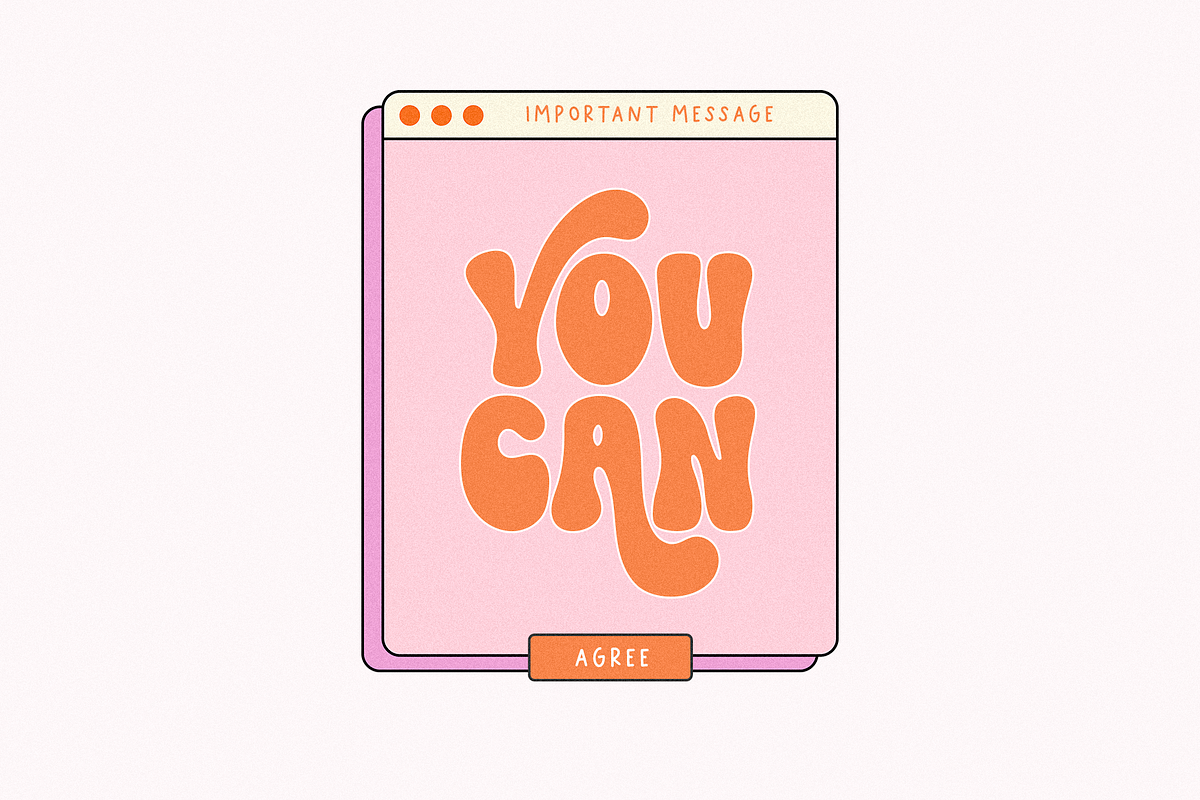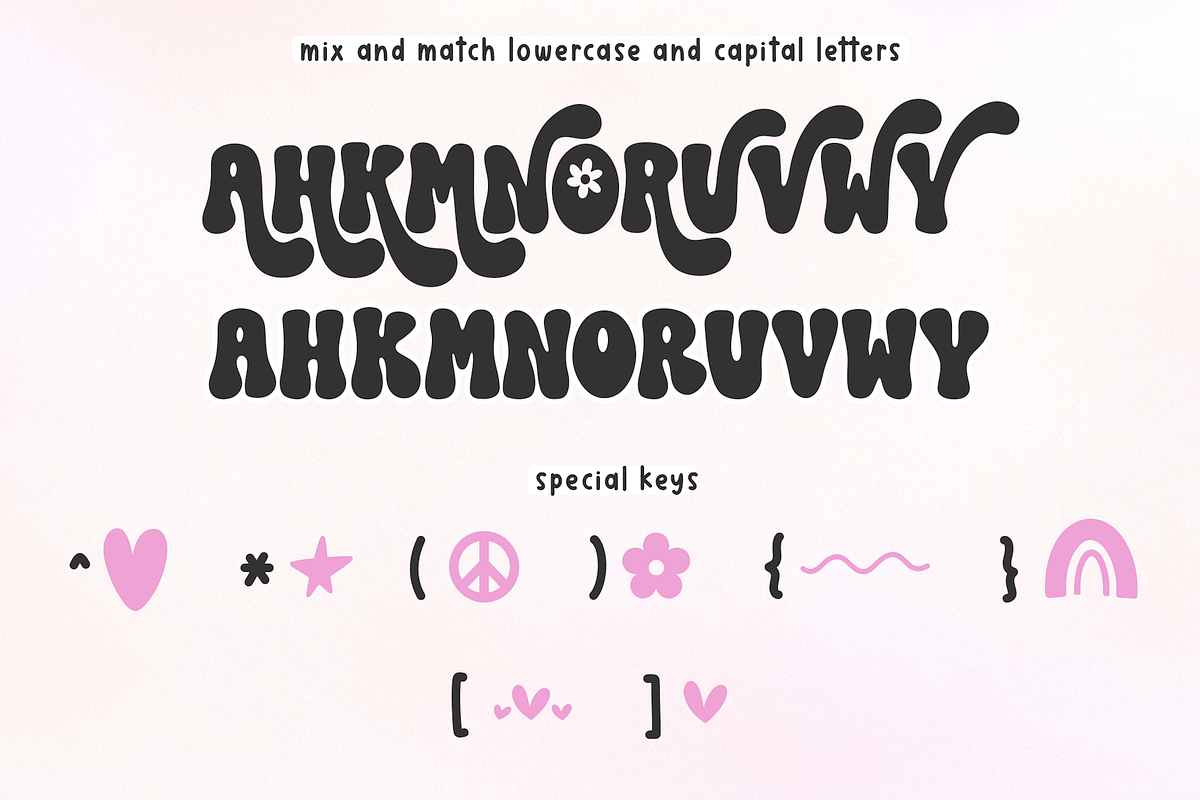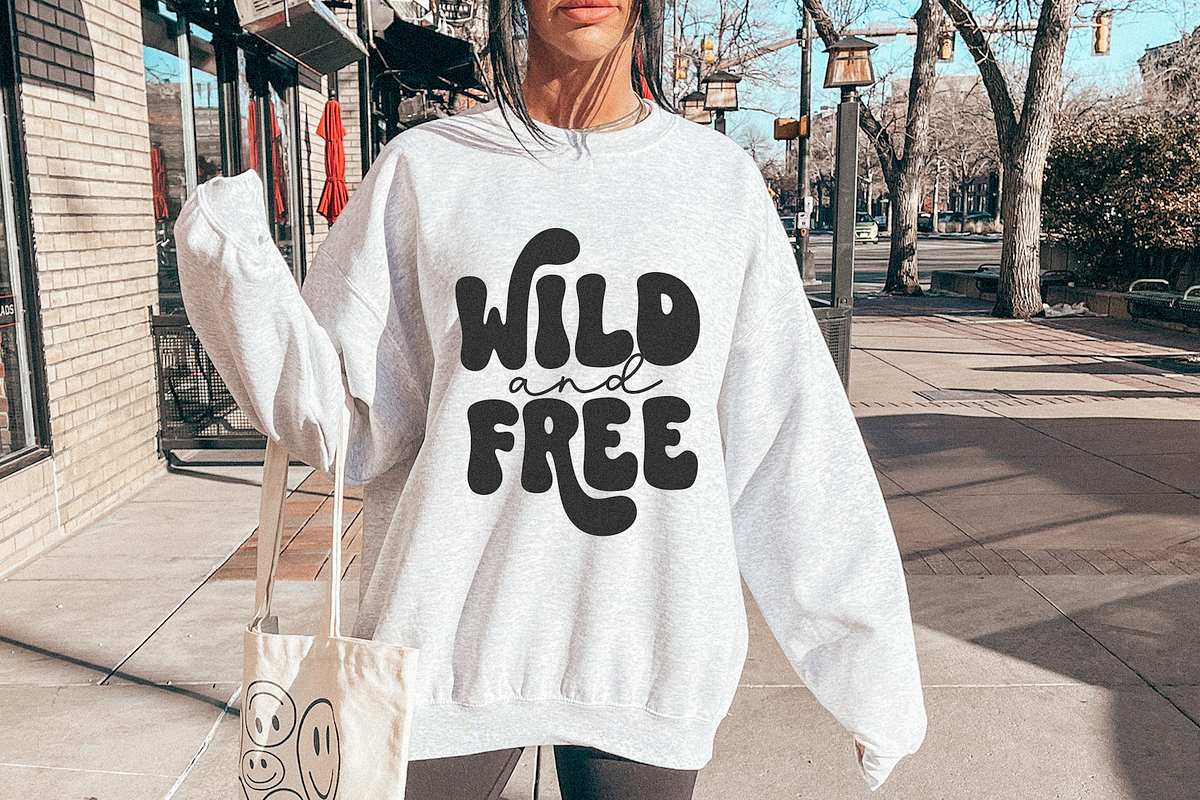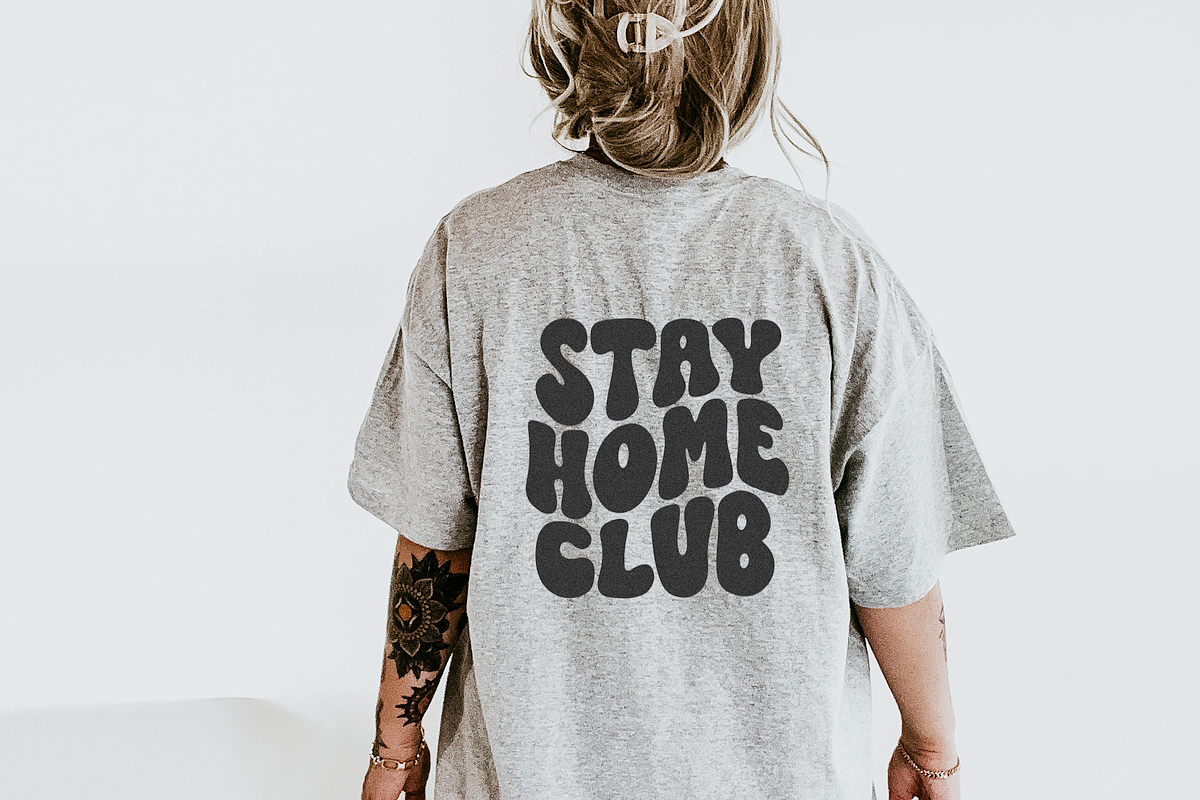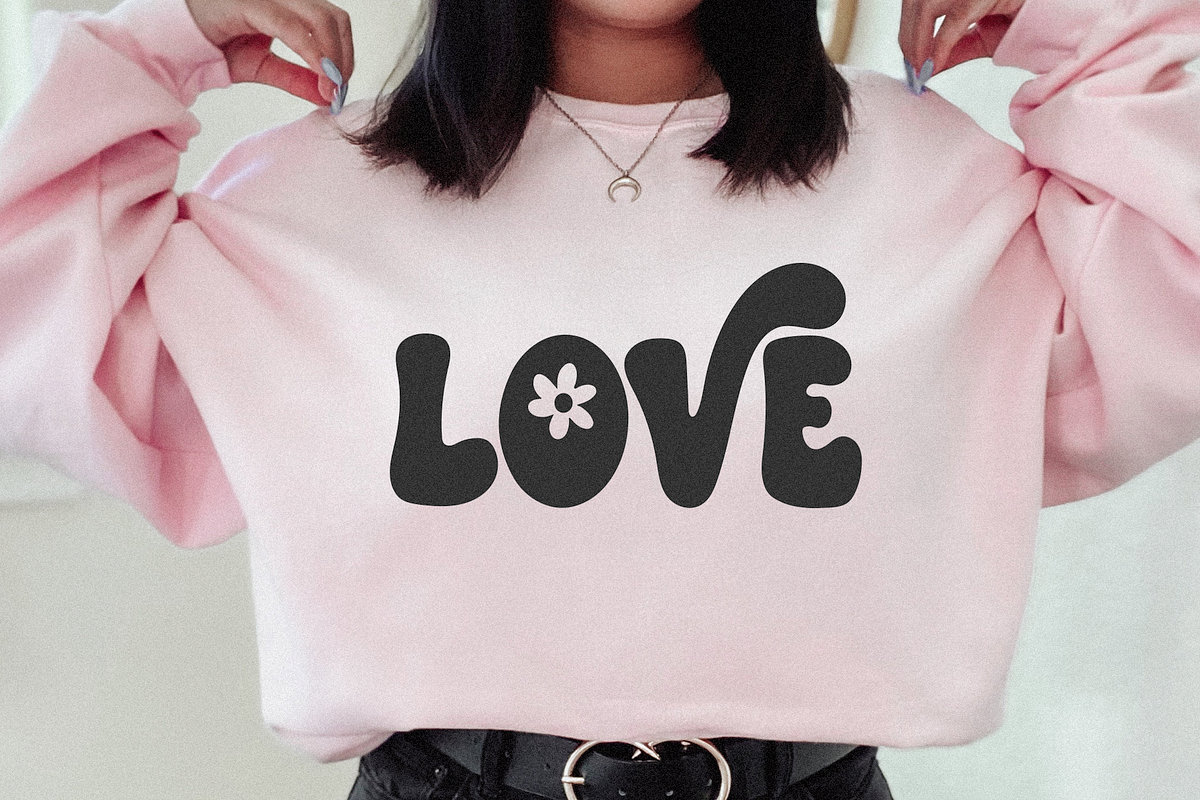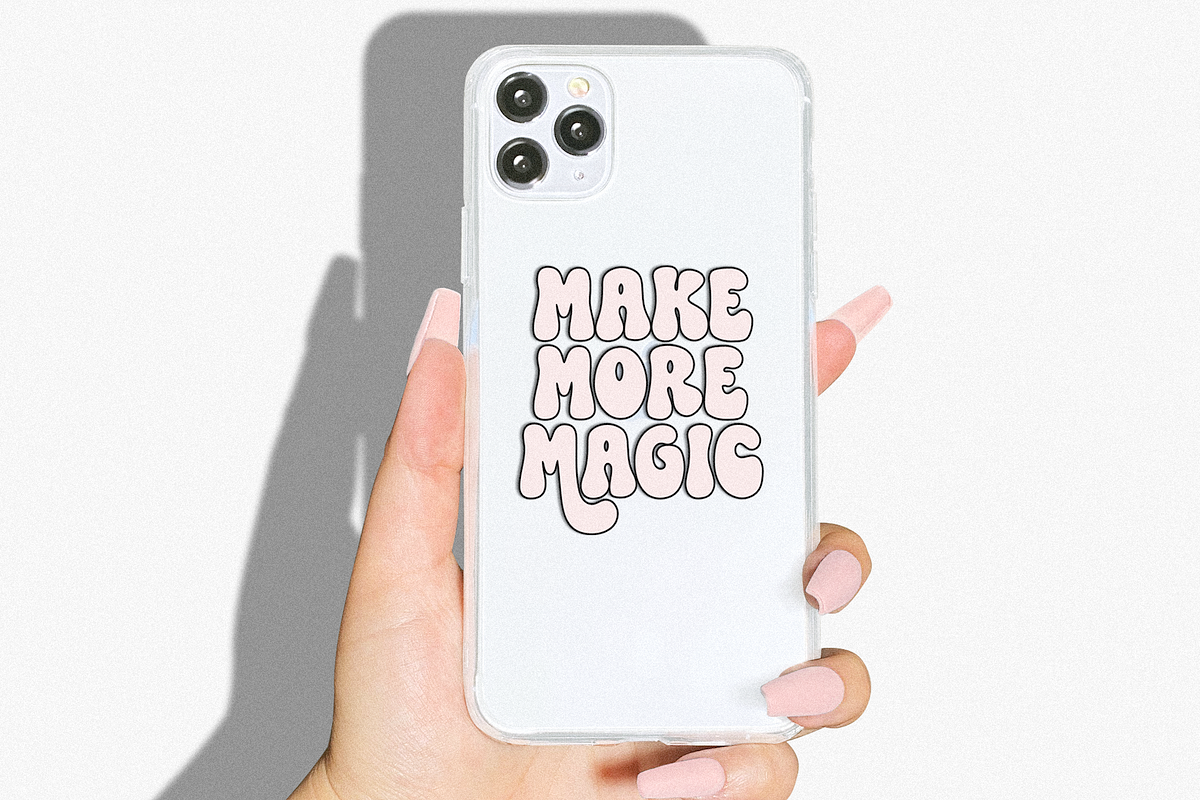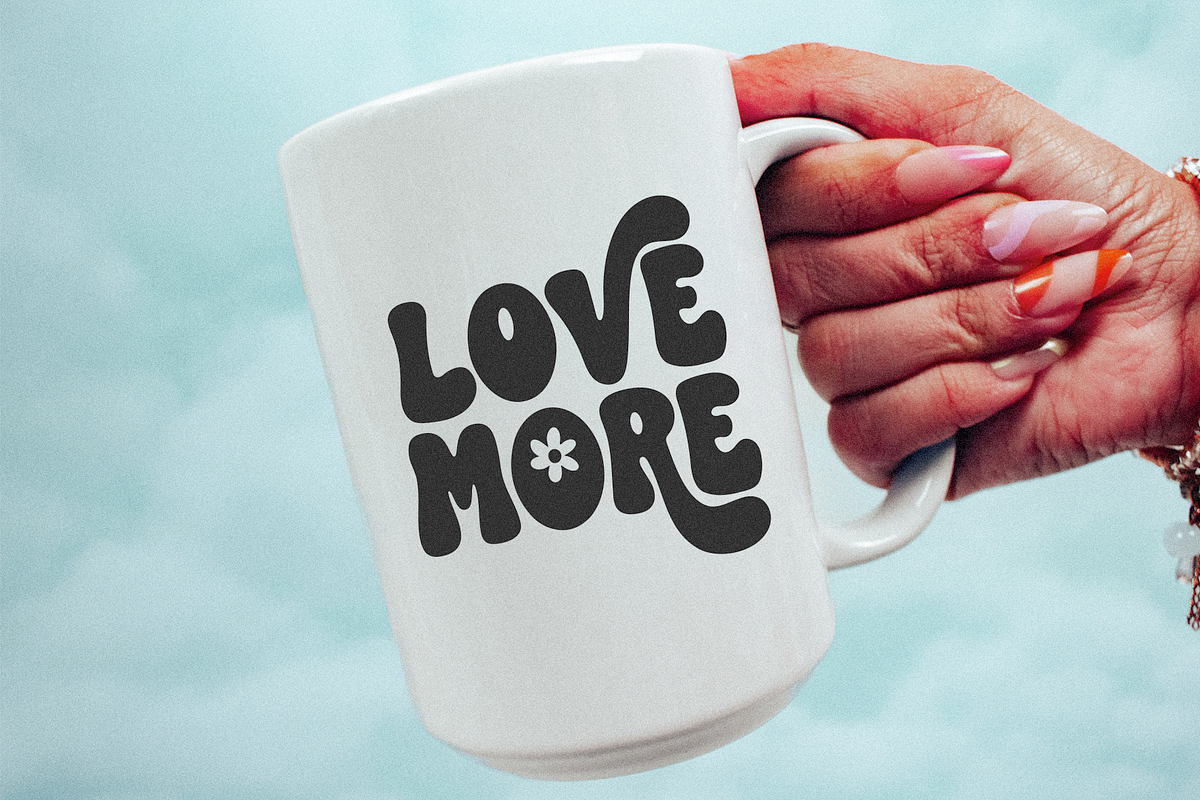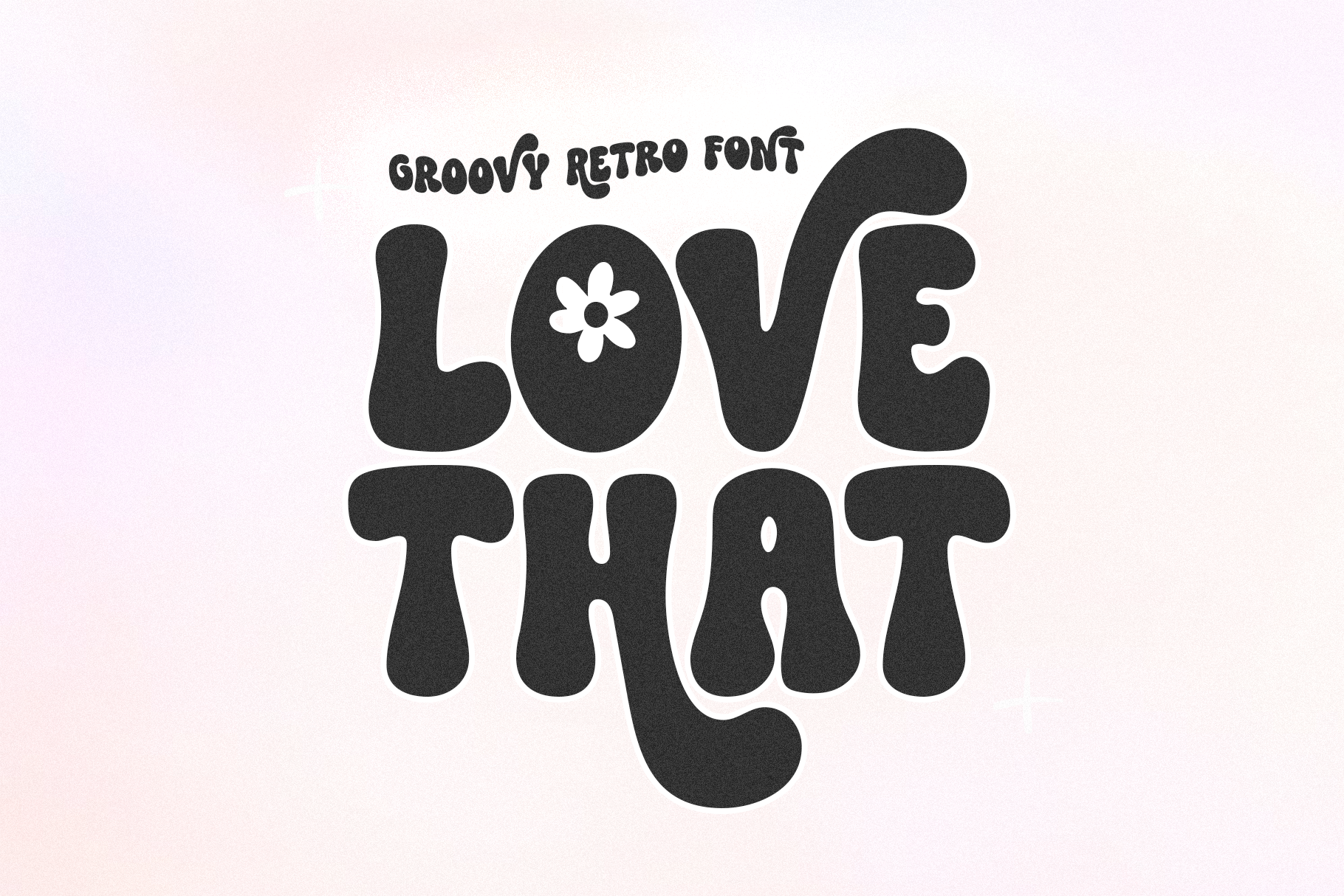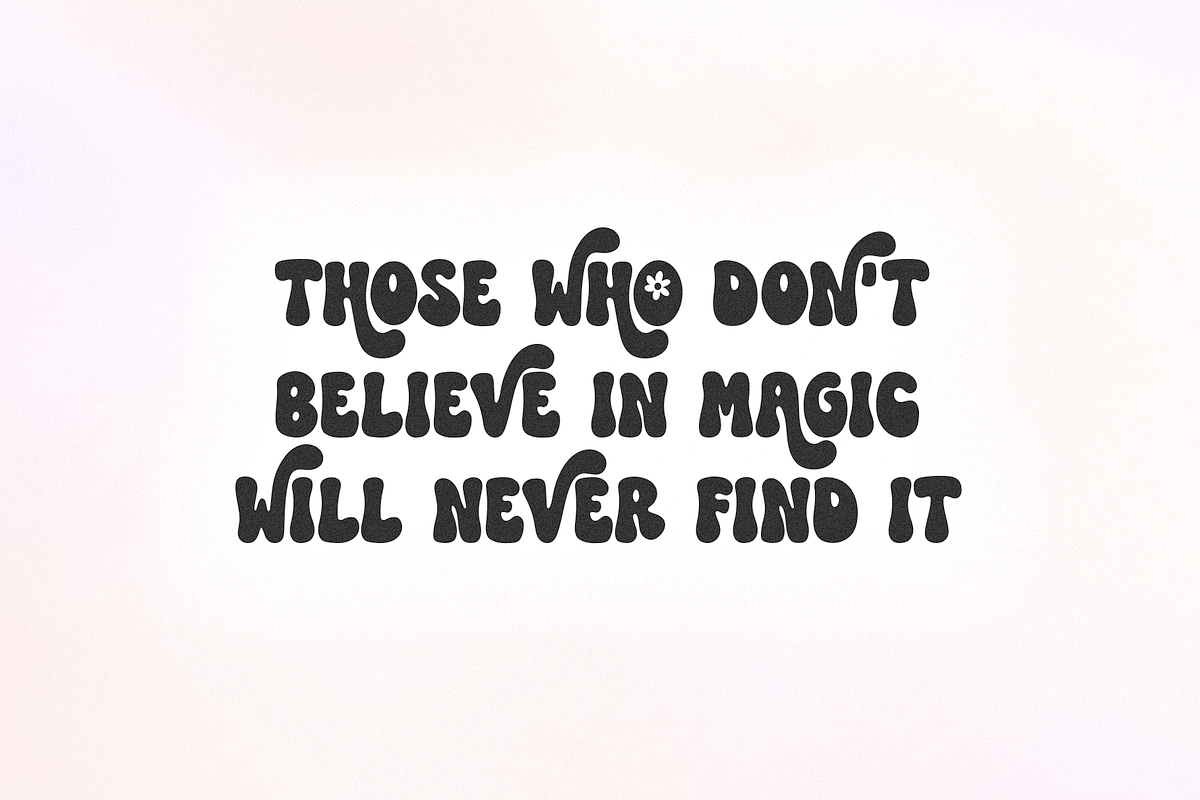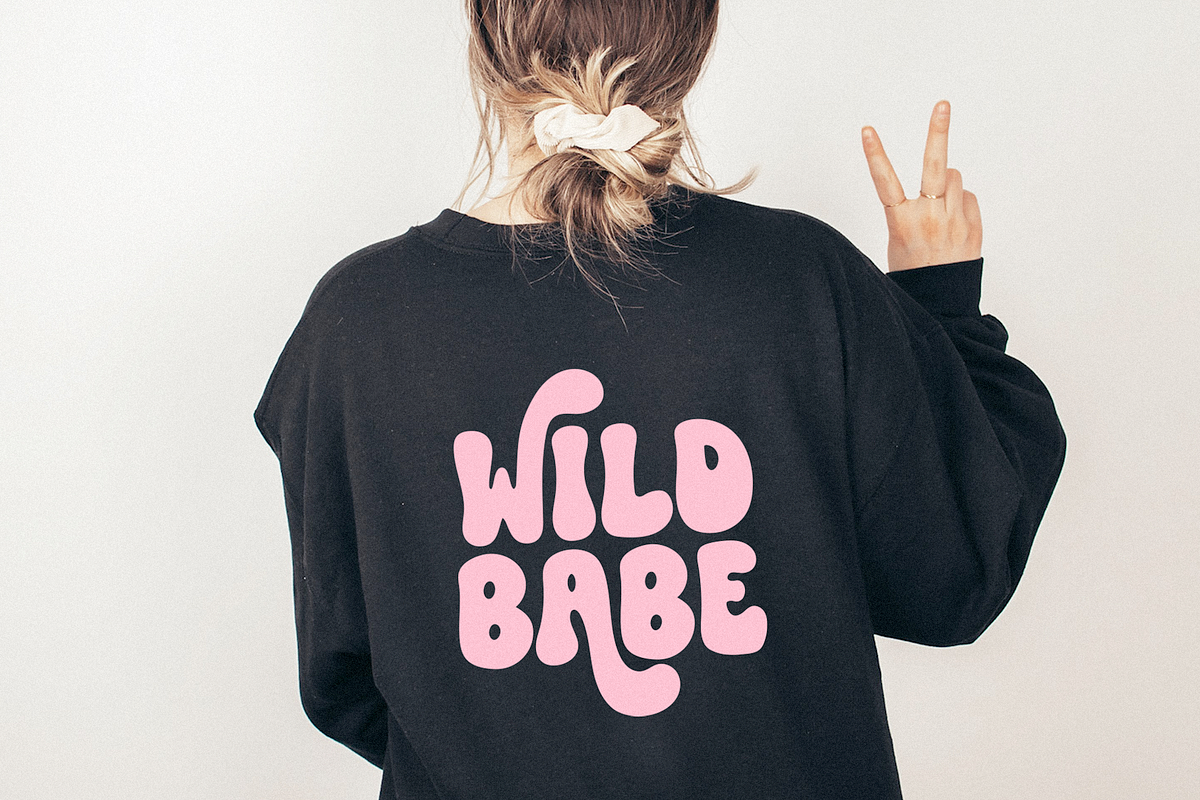
Love That | Retro Font
Love That is a hand-drawn font with a groovy feel!
This is an ALL CAPS font
Use lowercase letters for swash letters - a, h, k, m, n, r, u, v, w, y + flower o
This font is perfect for your retro designs, svg designs, shirts, mugs, stickers, procreate, logos and more!